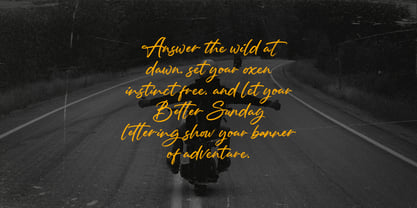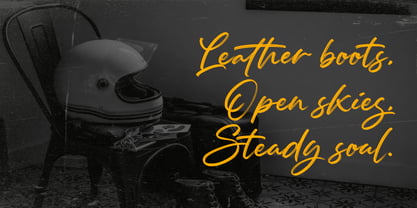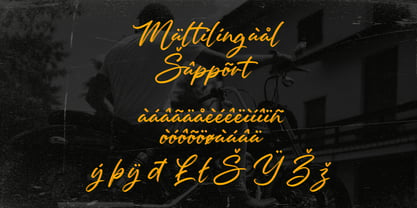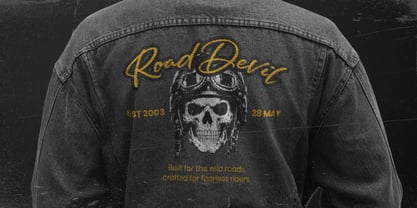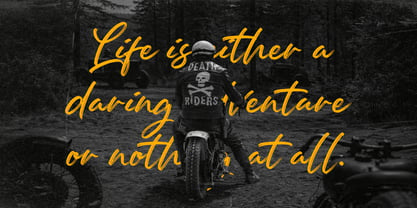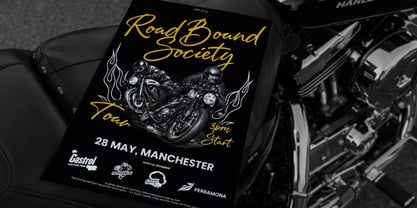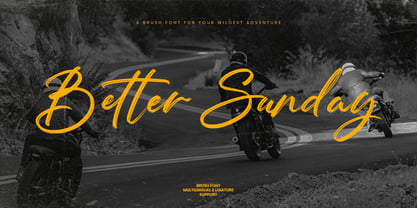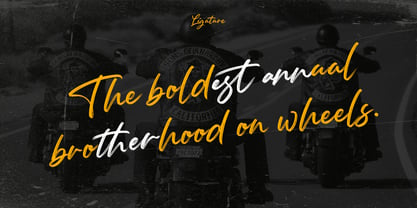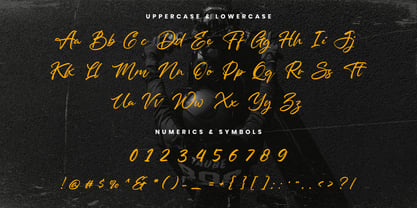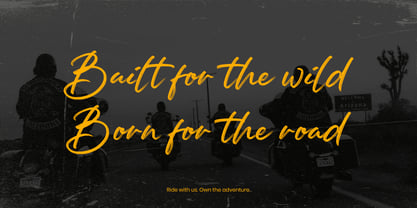
Better Sunday
The Better Sunday Font Family was designed by Virgiawan Listanto and published by Inviline. Better Sunday contains 1 styles. More about this family
Better Sunday is a bold, hand-painted brush script that captures the raw energy of speed, wind, and open highways; you get a textured brush typeface with expressive uppercase and lowercase characters, dynamic swashes, natural ligatures for seamless connections, numerals, punctuation, extensive multilingual support, and high-contrast strokes that keep every word powerful yet readable, making it perfect for motorcycle and motorsport branding, road trip posters, event flyers, garage and bar signage, adventure lifestyle logos, editorial headlines, statement quotes, packaging, apparel graphics, and any design that needs a gritty, free-spirited, and authentic handcrafted feel.